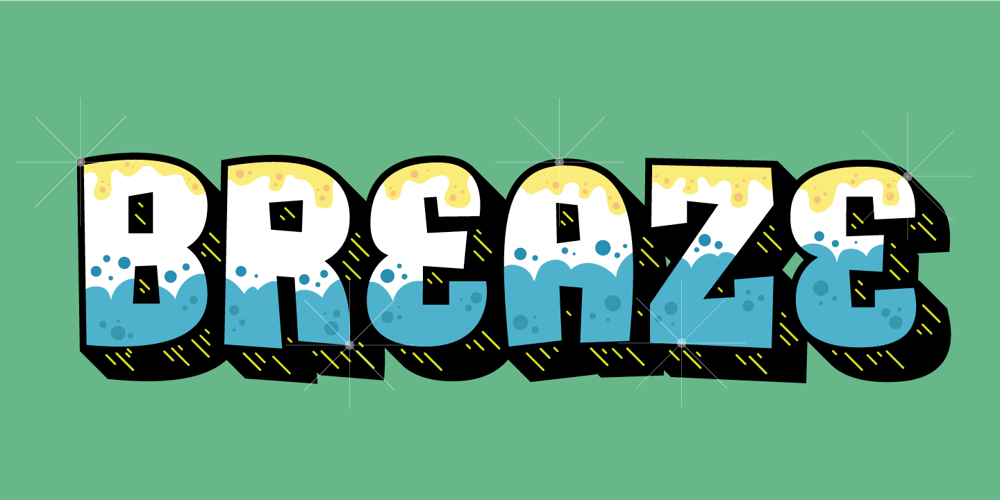
Breaze Font Family was designed by Jakob Fischer and published by PizzaDude.dk. Breaze contains 2 styles and family package options. You may think cartoon or kids product, when you take a look at Breaze – and you may be right…but I did have retro grafitti in mind, when I drew the letters. Well, actually I may have mixed both cartoon and grafitti! Anyway, it’s a playful font and is suitable for many things!